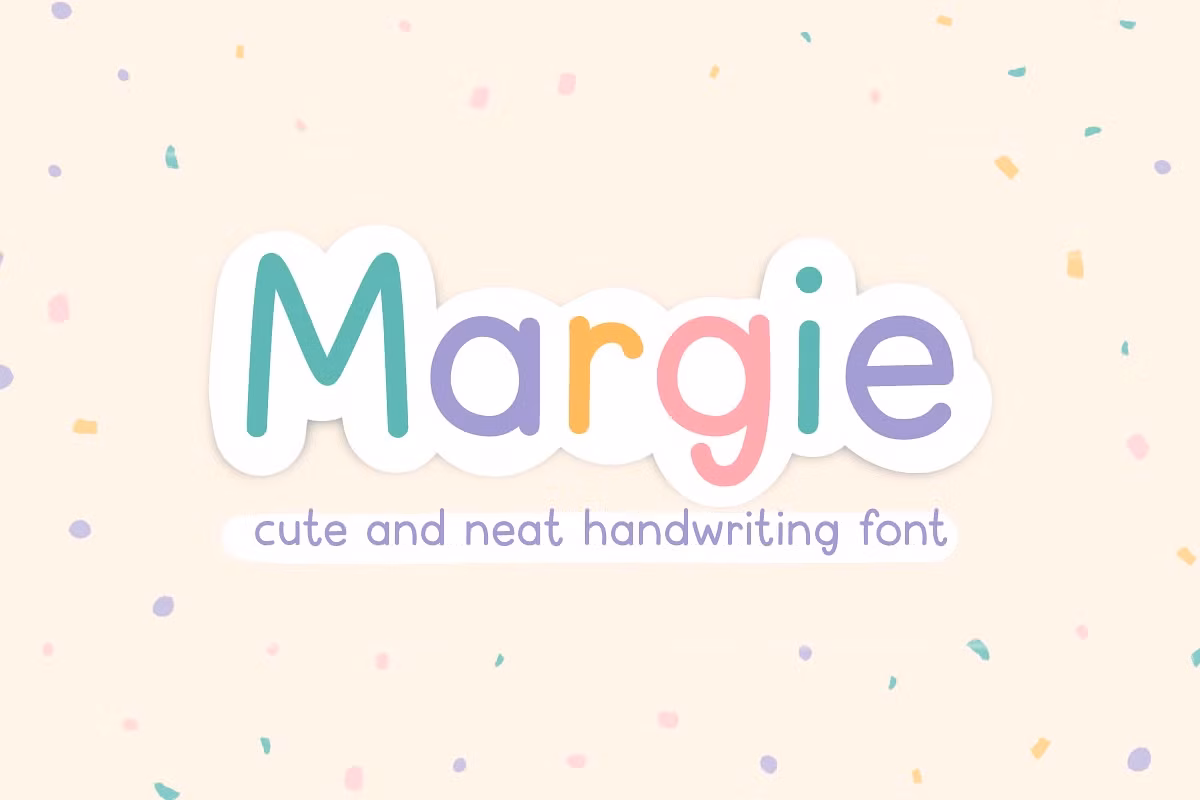
Margie Cute Handwriting Font Free Download is a playful and charming handwritten typeface with a fun, casual style. Featuring friendly curves and whimsical strokes, this font is perfect for projects that need a personal, youthful, and approachable touch. It's great for invitations, greeting cards, logos, social media posts, and any design that aims to convey warmth and personality.
The informal, hand-lettered feel of Margie makes it ideal for creative projects, particularly those targeting a fun or playful audience. Whether you're working on children's designs, casual branding, or crafting something special for friends or family, Margie adds a cheerful and creative flair to your typography.